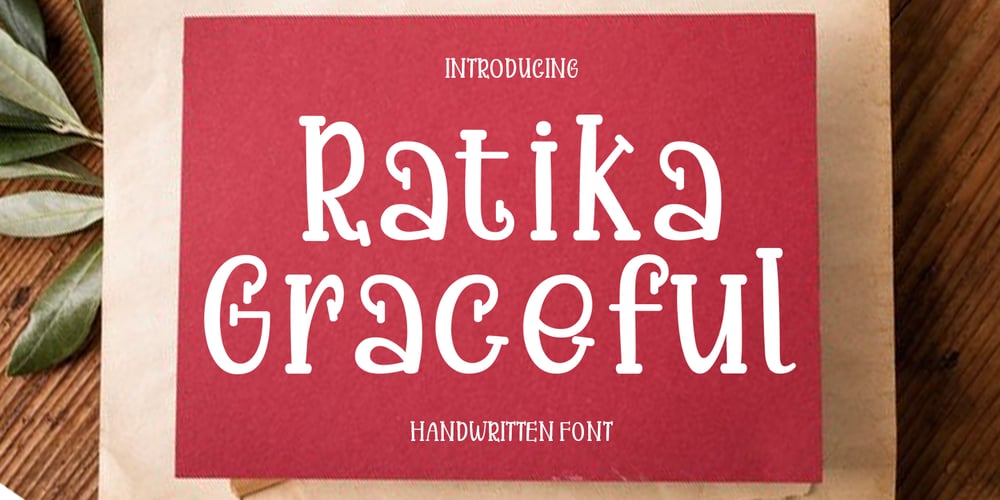
Ratika Graceful Font Family was designed by Teuku Saifullah and published by Shape Studio. Ratika Graceful contains 1 styles and family package options. Ratika Graceful is a new modern Handwritten font with an irregular baseline. Trendy and feminine style. Ratika Graceful looks lovely on wedding invitations, thank you cards, quotes, greeting cards, logos, business cards and more. Perfect for using in ink or watercolour. Including initial and terminal letters, alternates and multiple language support.